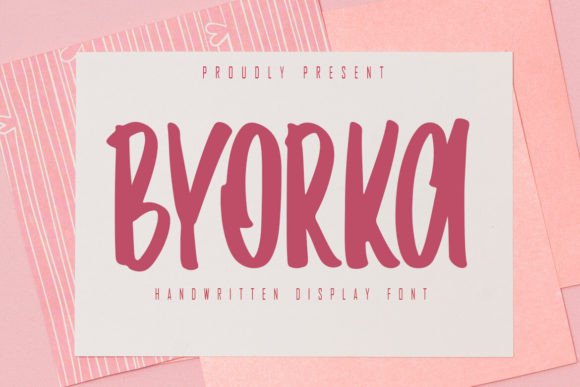
Dive into the captivating world of Byorka, an exclusive display font family that will ignite your creative spirit. Crafted by the renowned Skiiller Studio, Byorka is meticulously designed to evoke a sense of elegance, warmth, and authenticity.
Unleash your inner artist with Byorka, a font that dances effortlessly across your designs, lending a touch of personalization that will leave a lasting impression. Picture exquisite wedding invitations that seem to whisper sweet nothings, thank-you cards that convey heartfelt gratitude, and logos that exude a timeless charm.
But Byorka's allure extends far beyond its aesthetic appeal. Its versatility knows no bounds, making it the perfect choice for a myriad of creative endeavors. Whether you seek to create captivating greeting cards that convey emotions with every stroke or design stunning logos that command attention, Byorka is your trusted companion.
Immerse yourself in the boundless possibilities that Byorka unlocks. Experience the joy of crafting designs that resonate with your audience, designs that speak to their hearts and leave an unforgettable mark.
With Byorka, you gain more than just a font; you embark on a journey of self-expression and creativity. Let the graceful curves and flourishing swashes of Byorka inspire you to create designs that captivate and enchant.